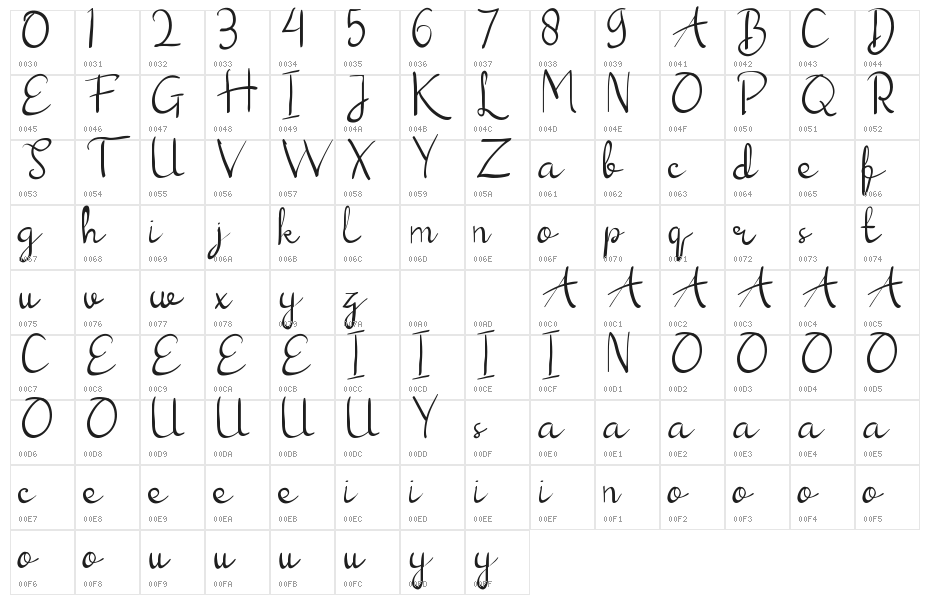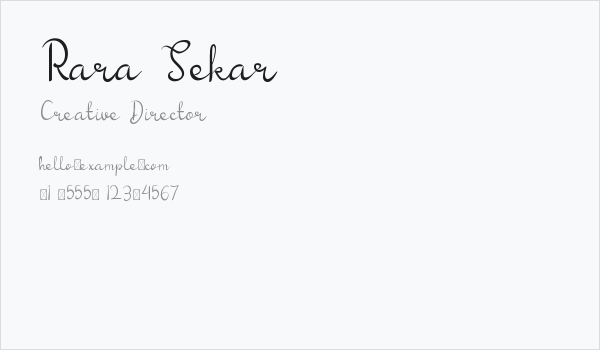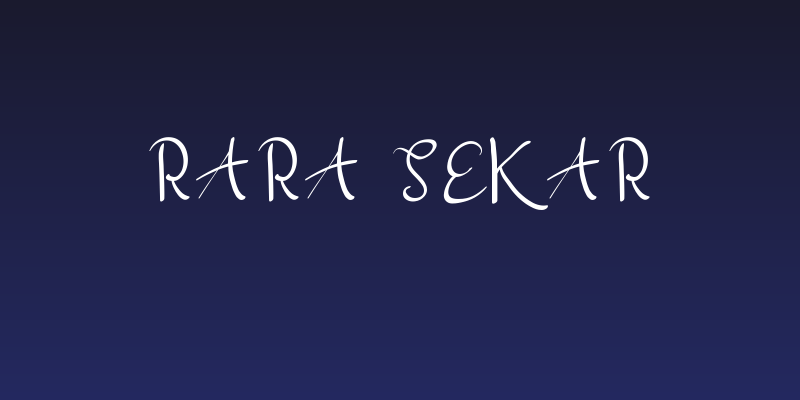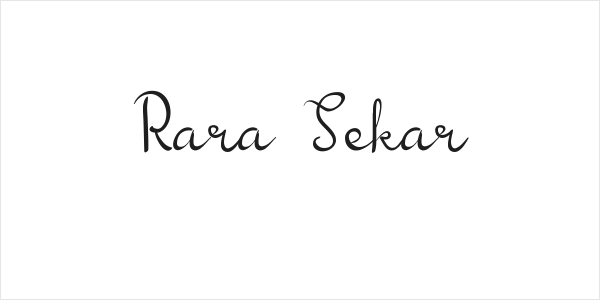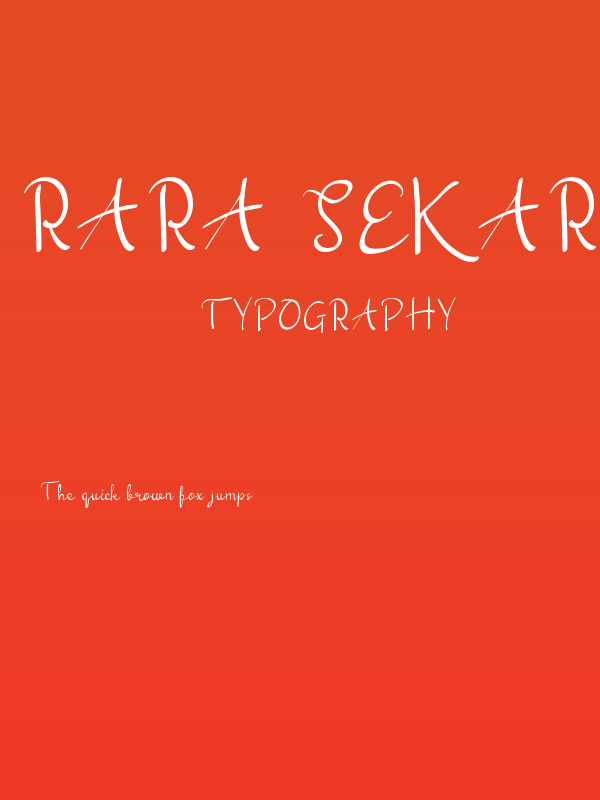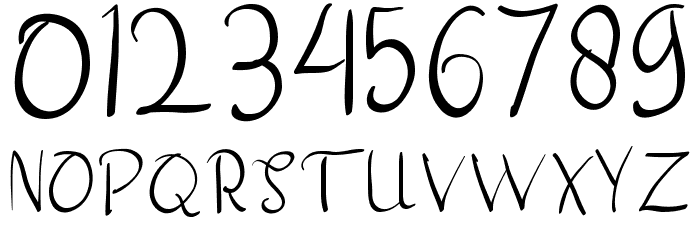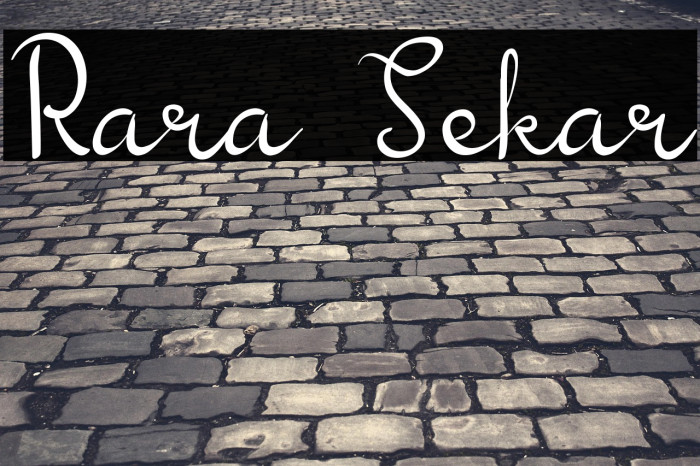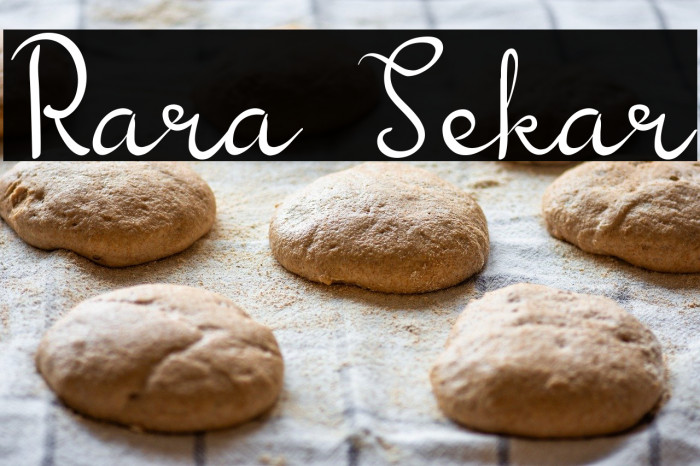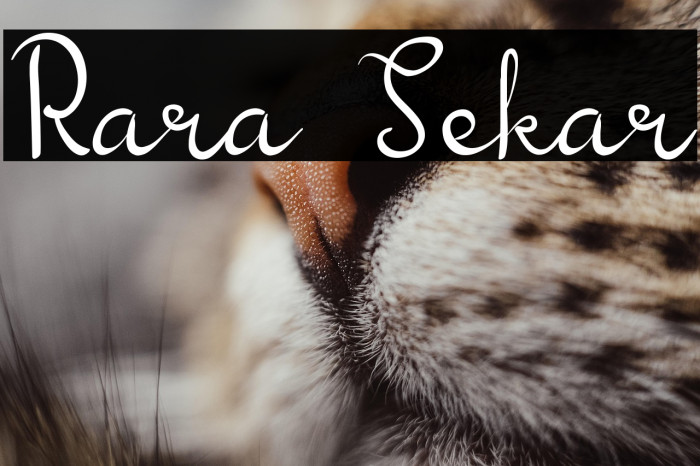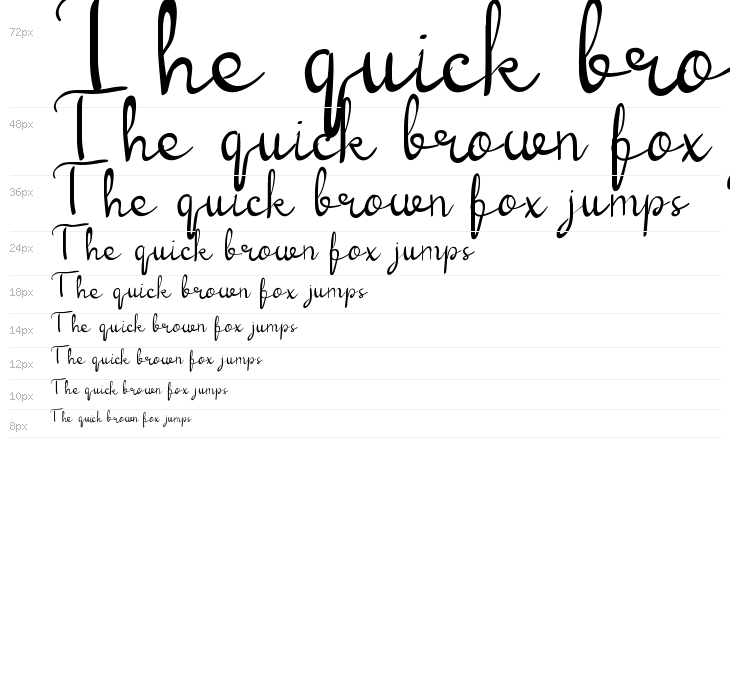
Rara Sekar Font
Rara Sekar Description
This font features a playful and elegant handwritten style, characterized by its fluid and dynamic strokes. The uppercase letters are tall and slightly narrow, with a whimsical flair that adds a touch of personality. The lowercase letters maintain a consistent flow, with some letters extending below the baseline, enhancing its handwritten charm. The numerals are bold and clear, ensuring readability while maintaining the overall aesthetic. Special characters blend seamlessly with the alphabet, offering versatility for various uses. The font's unique style makes it suitable for creative projects that require a personal and artistic touch.
| Proposed Projects | Ideal for greeting cards, invitations, personal branding, and creative posters. |